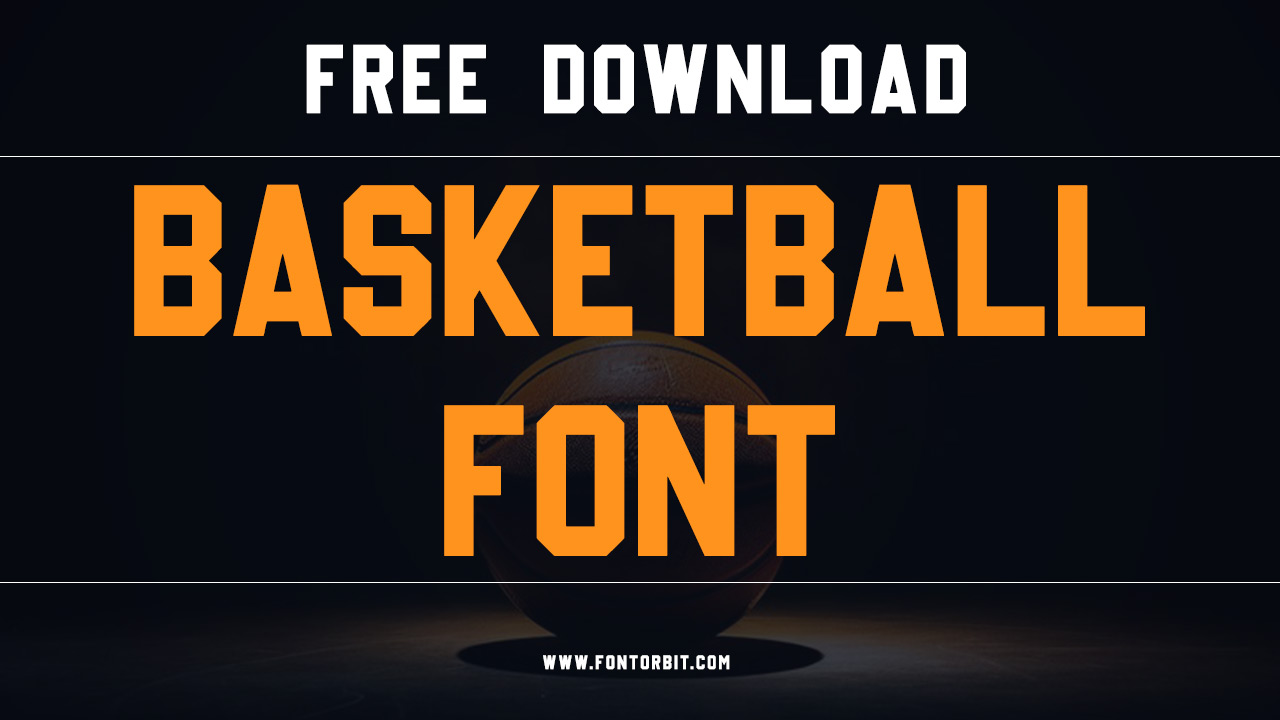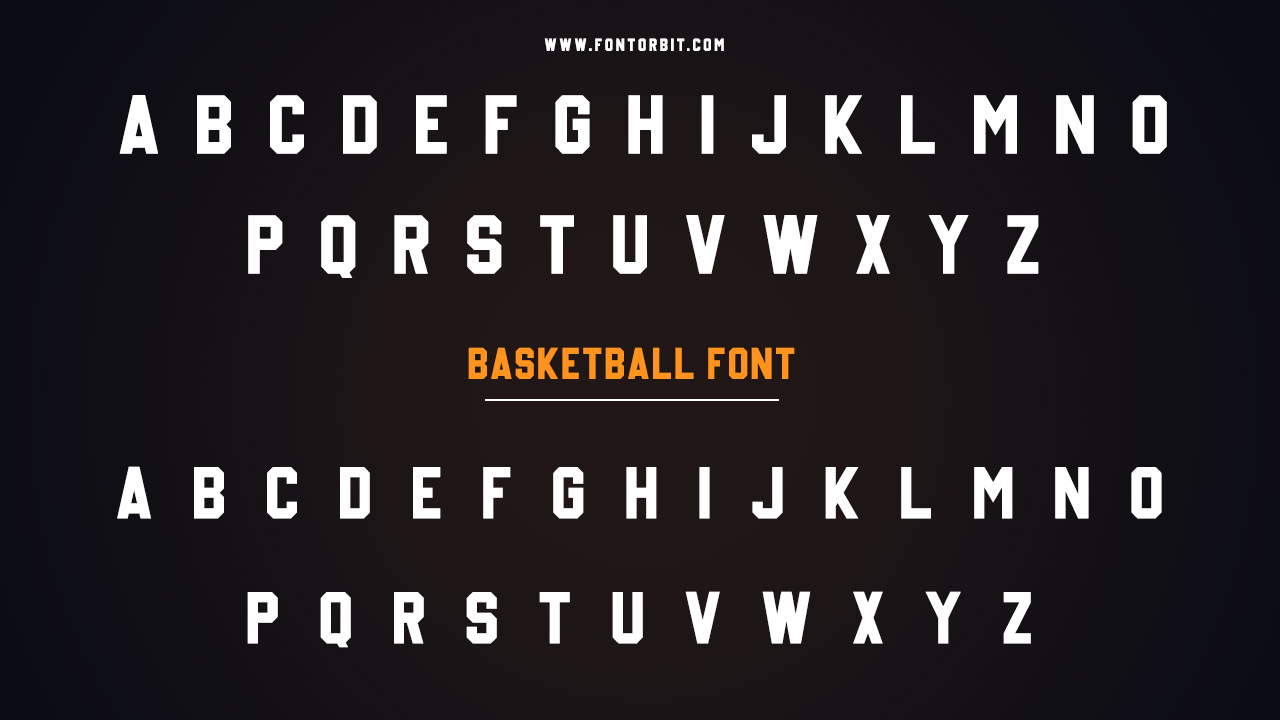
Choosing the right basketball font combination can enhance sports branding, logo design, and typography projects. Akhmad Afandhi, a renowned font designer, has created bold sports typography that pairs well with both modern and retro fonts. Whether you’re designing jerseys, banners, or advertisements, understanding font pairings can make your work stand out.
Key Features Of Basketball Fonts
Basketball fonts have distinct characteristics that make them suitable for sports design.
- Bold and Strong – Ideal for team branding and posters
- Sharp Edges – Gives a modern and aggressive look
- All Caps or Mixed Case – Some fonts only include uppercase letters
- Retro and Classic Styles – Suitable for vintage sports themes
- Easy to Read – Ensures clear visibility on jerseys and banners
Popular Basketball Font Families
Here are some well-known basketball font families:
- Serpentine™ – Strong, bold, and widely used in sports logos
- Winner Sans – A modern sans-serif with an athletic feel
- Rockwell – A slab serif perfect for retro sports branding
- Gotham – A clean and contemporary font for contrast
- Montserrat – A versatile sans-serif for pairing
- Lato – Provides a softer touch for balance
- Script Fonts (Handwritten) – Adds a unique, personal feel
Best Font Pairing Strategies
Finding the perfect font combination is essential for readability and aesthetics. Use these strategies:
- Contrast Bold with Simple – Pair a strong basketball font with a simple sans-serif for balance (e.g., Serpentine™ + Montserrat).
- Mix Retro and Modern – Combine vintage fonts with contemporary styles to create a dynamic look (e.g., Rockwell + Lato).
- Use Handwritten Fonts Sparingly – Handwritten fonts work well in posters but should be balanced with structured fonts.
- Combine Script with Block Letters – A flowing script font can soften bold block lettering.
- Ensure Readability – Avoid pairing two decorative fonts that compete for attention.
Applying Font Pairing In Design Projects
| Design Project | Primary Font Choice | Best Pairing Font |
| Sports Logo | Winner Sans | Montserrat |
| Jerseys | Serpentine™ | Gotham |
| Posters | Rockwell | Lato |
| Advertisements | Basketball Regular | Helvetica |
| Product Packaging | Script Font | Sans-serif (e.g., Arial) |
1.What Is The Best Basketball Font For Sports Branding?
Serpentine™ and Winner Sans are great choices for sports logos and branding.
3.What Font Pairs Well With A Vintage Basketball Font?
Pairing Rockwell with a modern sans-serif like Montserrat creates balance.
4.How Can I Incorporate Handwritten Fonts In Sports Design?
Use them for accents or personal branding but pair with a structured font for contrast.
5.Are Basketball Fonts Only For Basketball Designs?
No, many of these fonts are also used in football, baseball, and general sports branding.
6.Do Basketball Fonts Include Lowercase Letters?
Some do, but many are all-caps for a strong, athletic look.